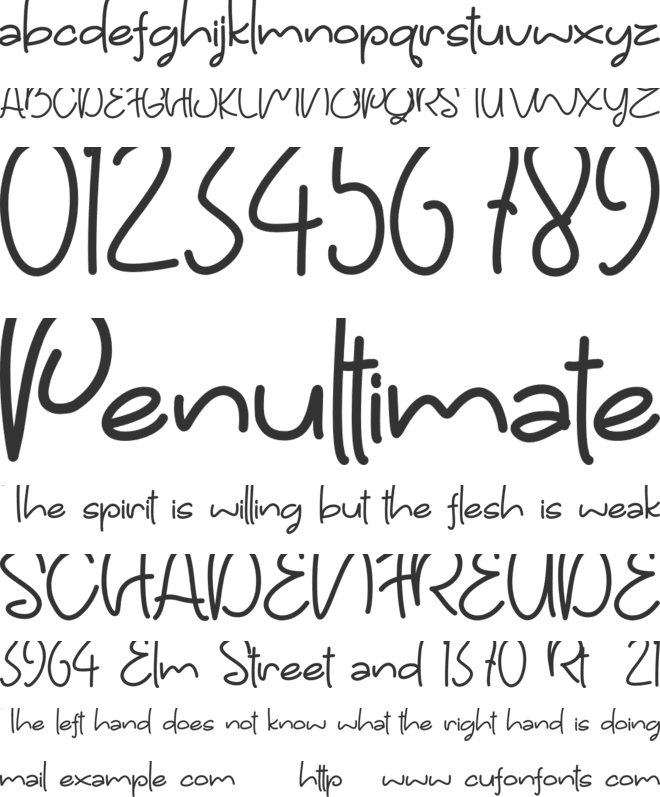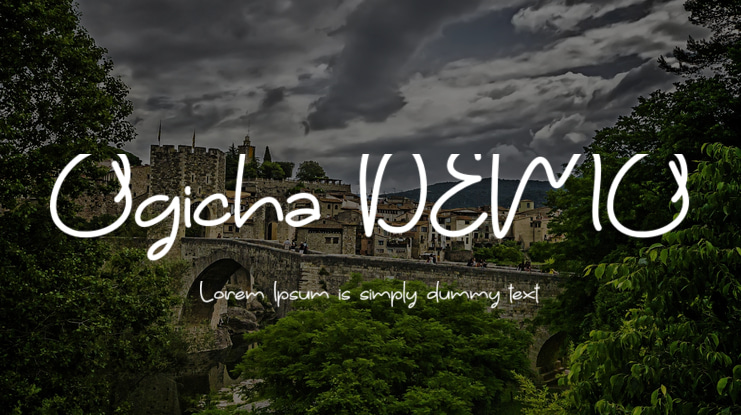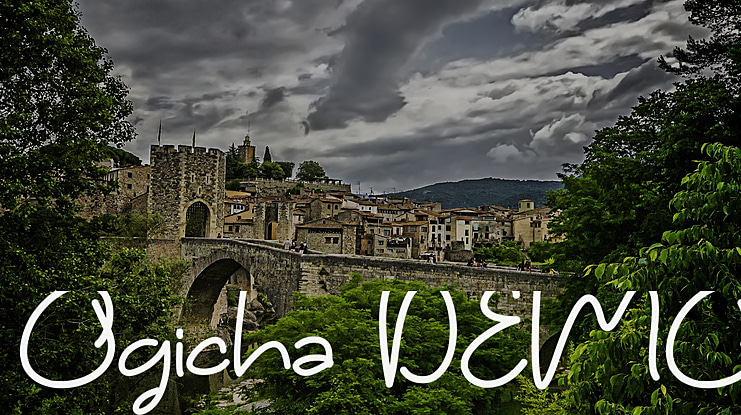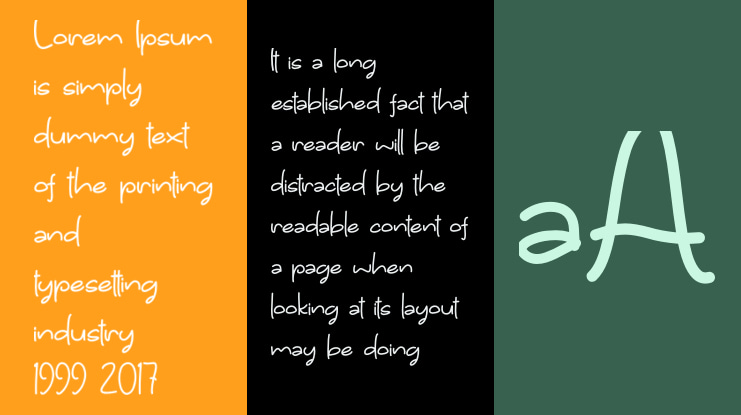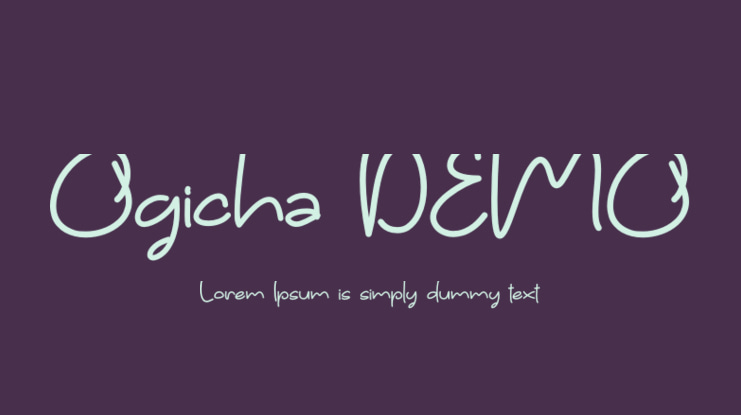
Ogicha DEMO Font
Introducing Ogicha - a sweet handwritten font
Ogicha is a sweet handwritten font. Its perfect for branding materials, design logos, posters, quotes, brochures, flyers, shirt designs, printing, book covers and more.